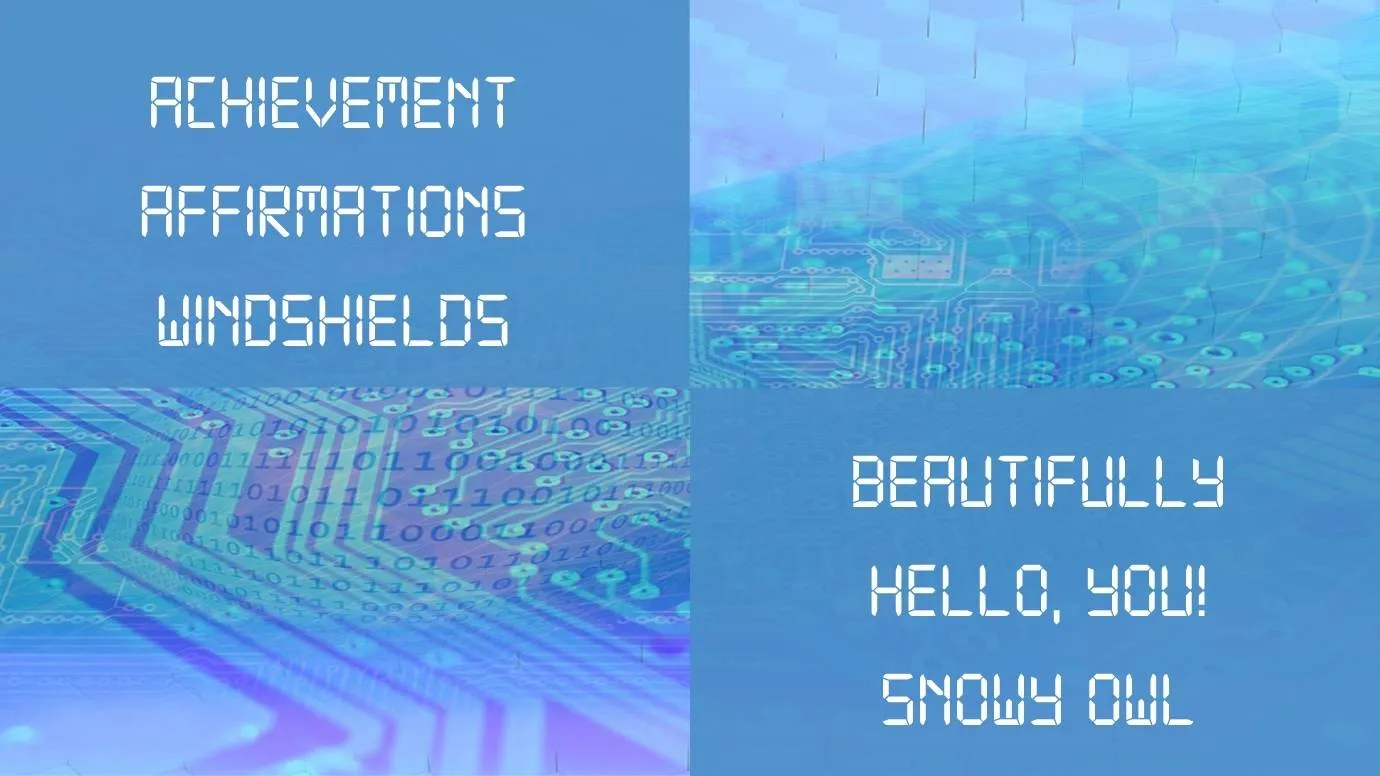
Today’s we are trying to introduce you to a new advanced and digital style of the typeface which is called Digital-7 font. This typeface is a group member of the Misc texture family, the style of this texture is techno. This is a regular type of texture that is published in four font styles. This typeface is designed for the first type on 03rd of October 2008, and this texture was designed by Sizenko Alexander.
This texture is a unique style of design, that had published with some basic styles of design that are casually used to communicate and to fulfill all the requirements of clients and designers.
This typeface gives a perfect quality within the extra-large font which make any of your quality imaged amazing, and this feature makes this texture extra popular because many companies and designer want to create a large style of banner or poster which required the best quality of font and images. This need of a designer is fulfilled with this typeface.
This font gives extra good quality of the font to the end-user. Therefore every company and designer wants to use this typeface for some of their best upcoming projects. Moreover, this typeface is best used for meter design and digital clock design.
This texture may use to make fantastic graphic designs. The character of this texture has a clear and elegant texture visualization for your communications and letters.
Creator of Digital-7 Font
This typeface is the family member of the Misc typeface group the style of this texture is Techno and this typeface had designed by Sizenko Alexander.
All these styles contain glyphs, capital and small alphabets, punctuations, numerical with a lot of characters, and a wide number of language supports.
What type of font is the Digital-7 Font?
This typeface is a group member of the Misc texture family, the style of this texture is techno. This is a regular type of texture that had published in four font styles. This typeface is designed for the first type on 03rd of October 2008,
What is a good Digital-7 font?
These typefaces are the same as the other font which has the same characters but, Digital-7 Font is the best texture in all of its competitors. The style of this texture is more stylish and stunning as compared to others.